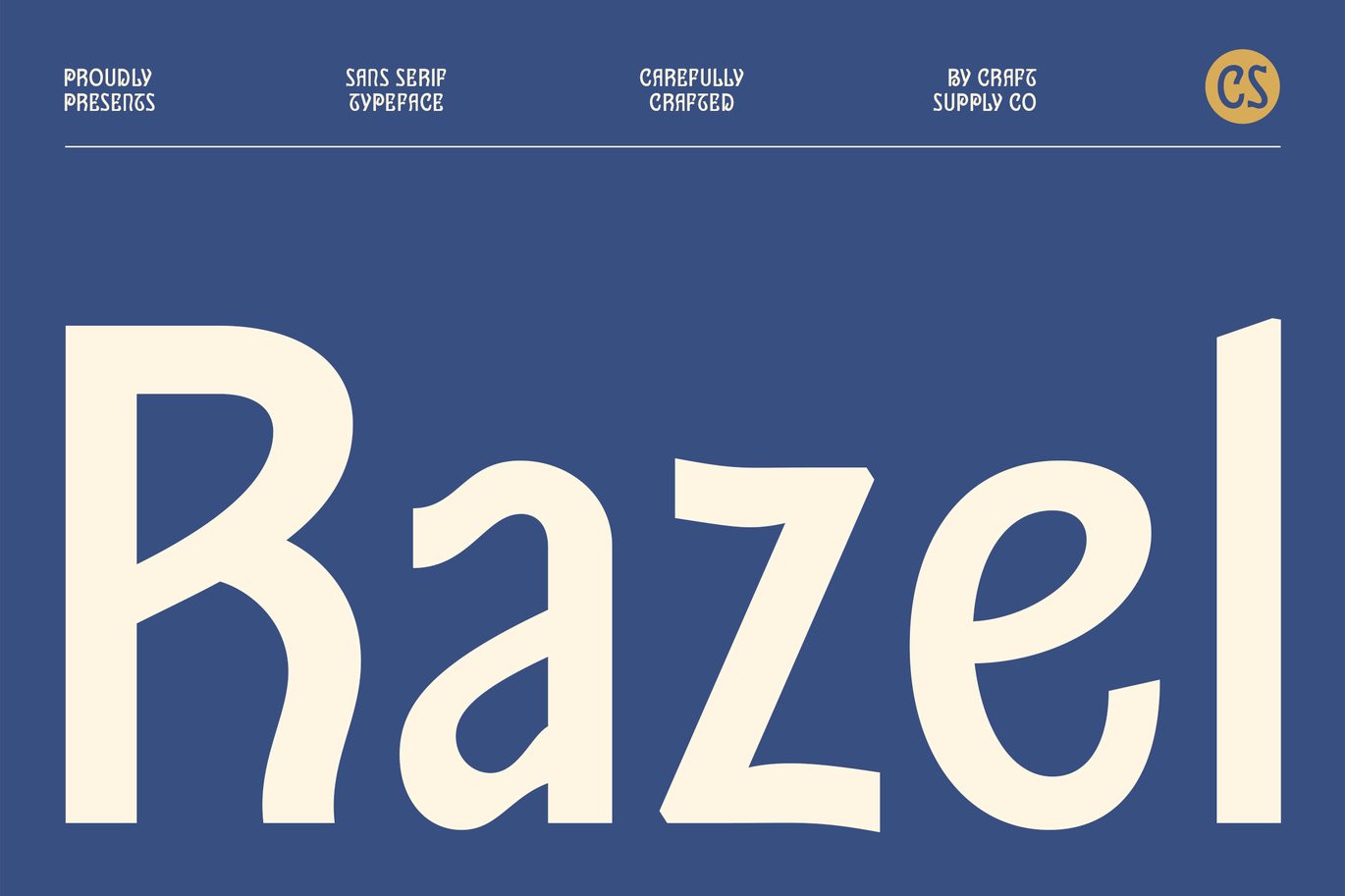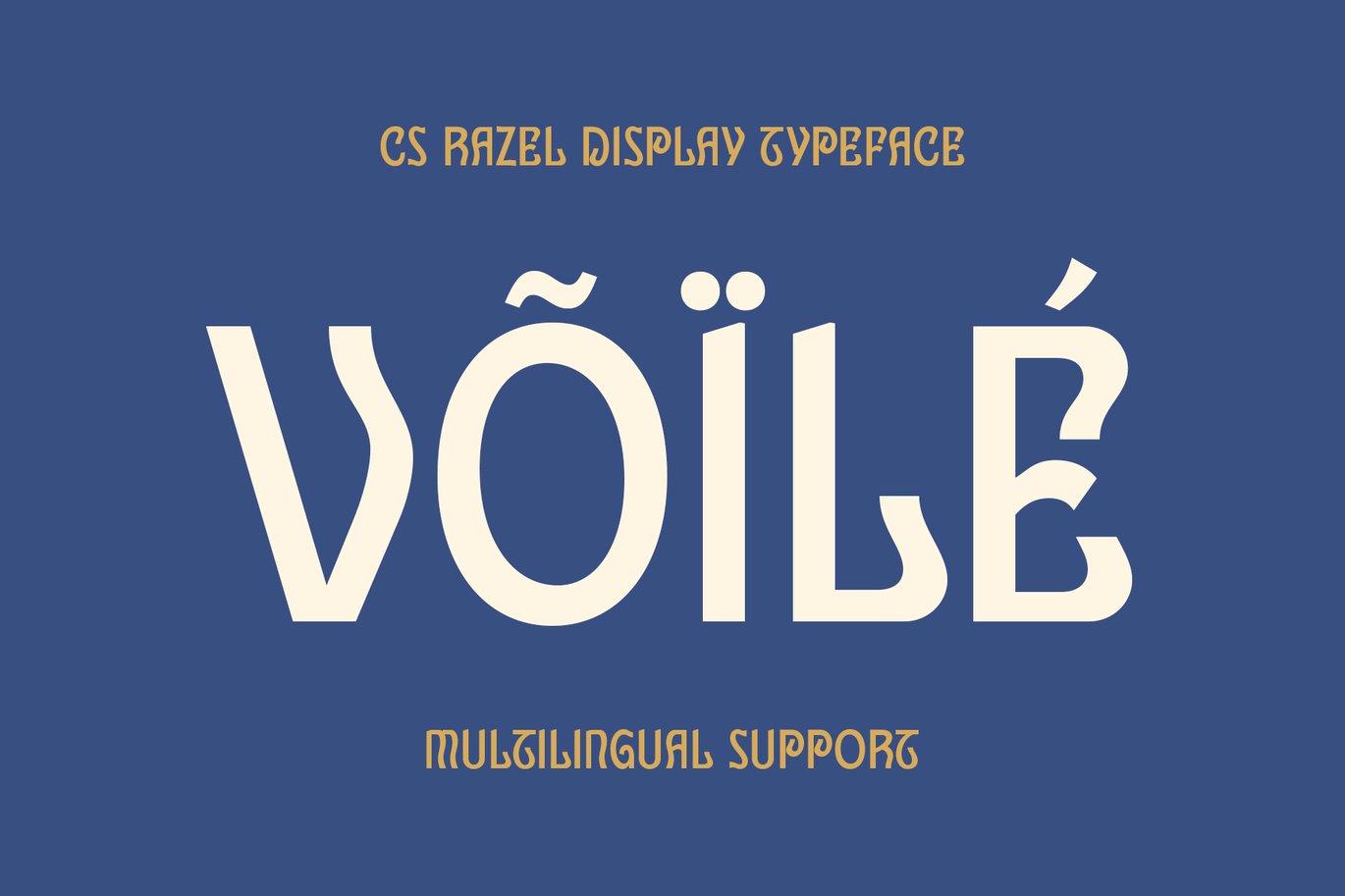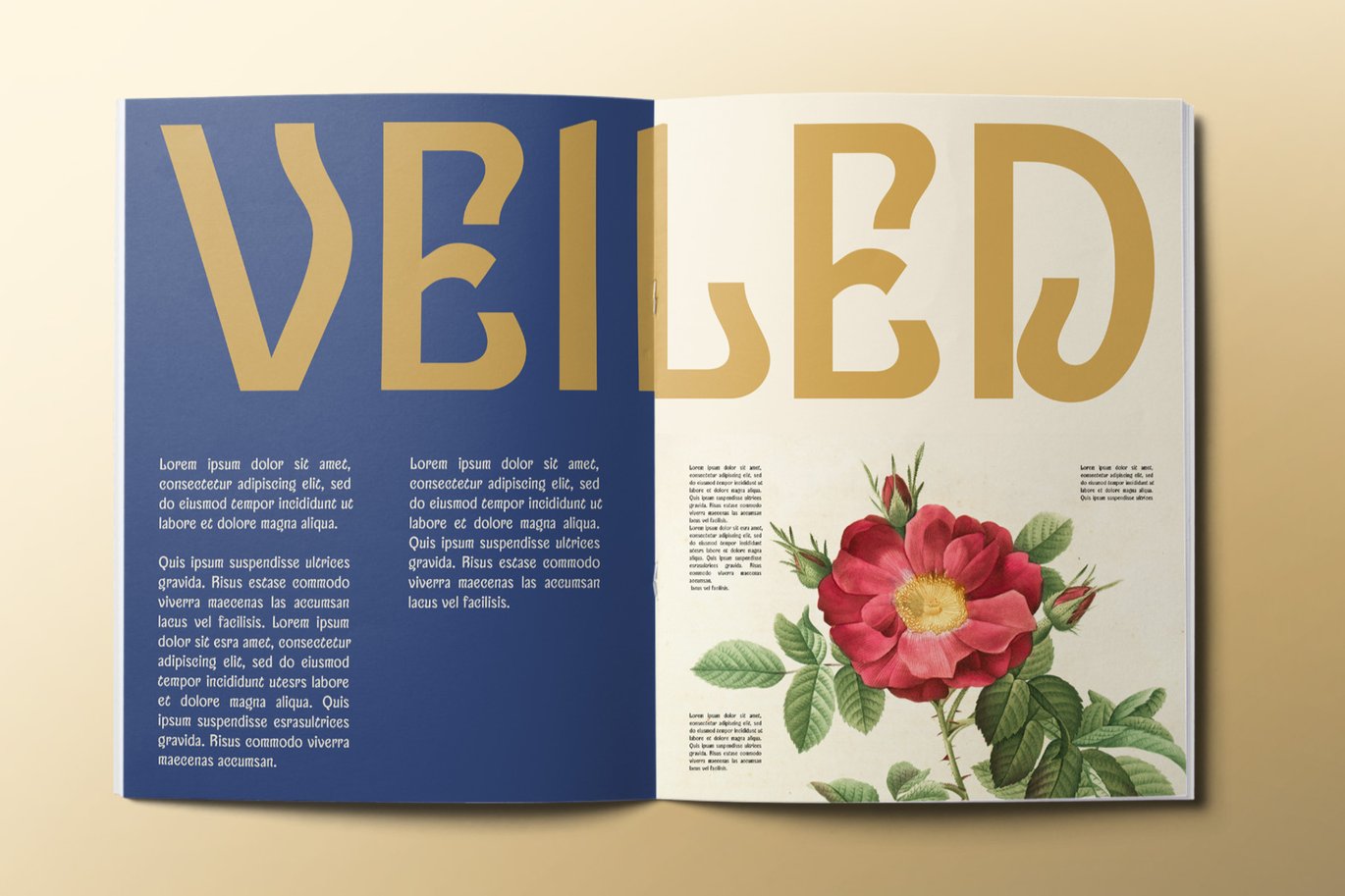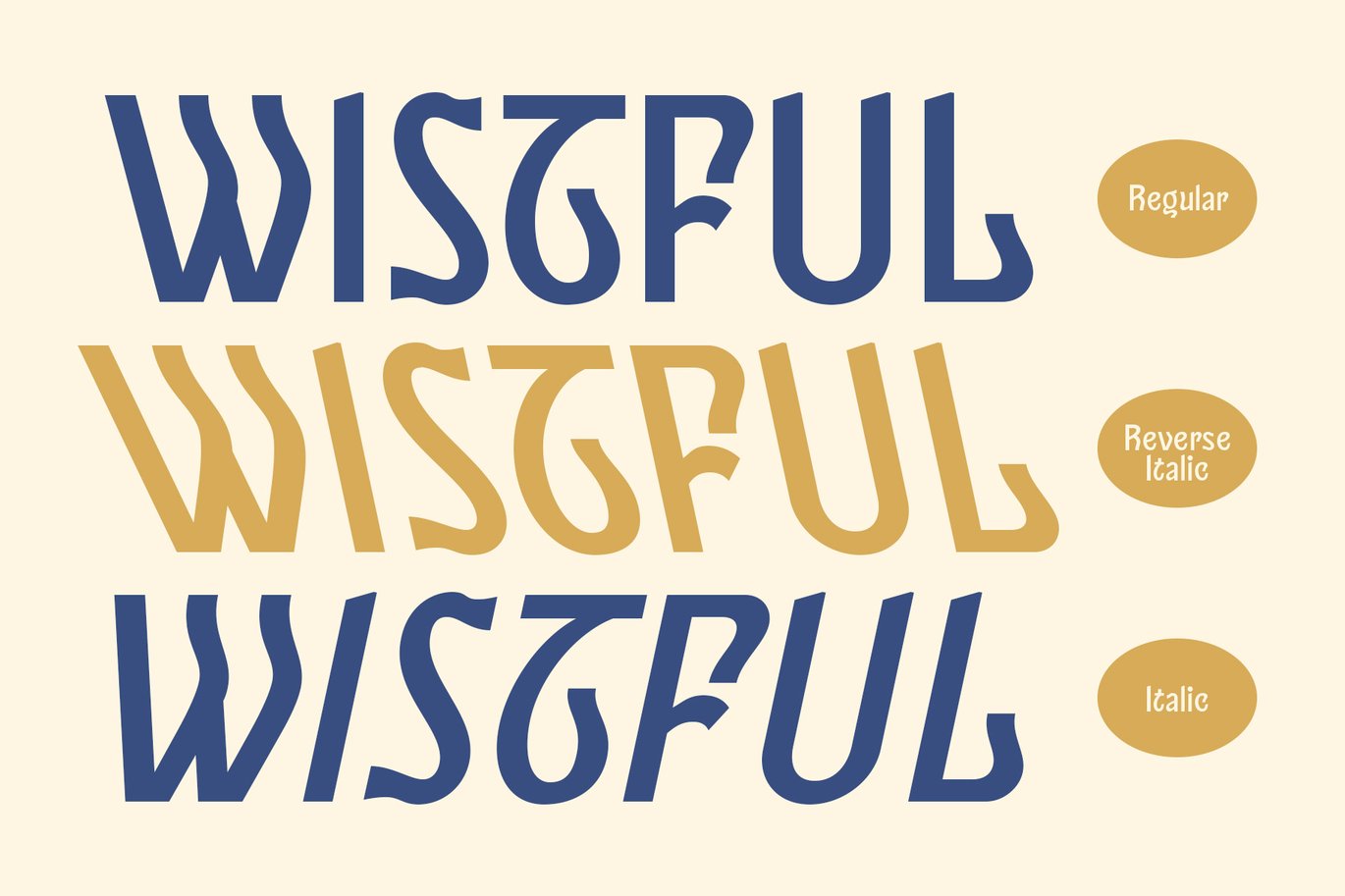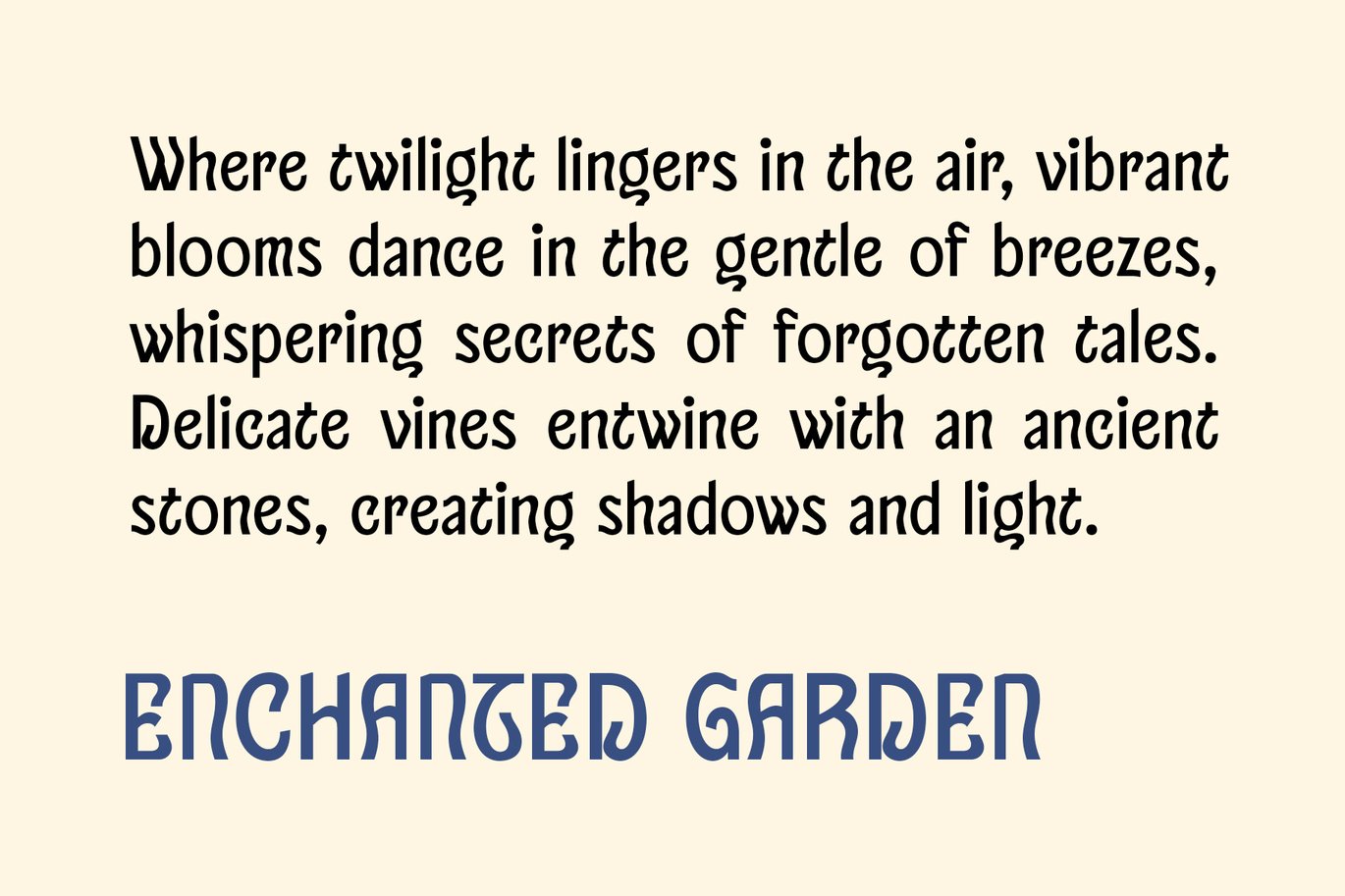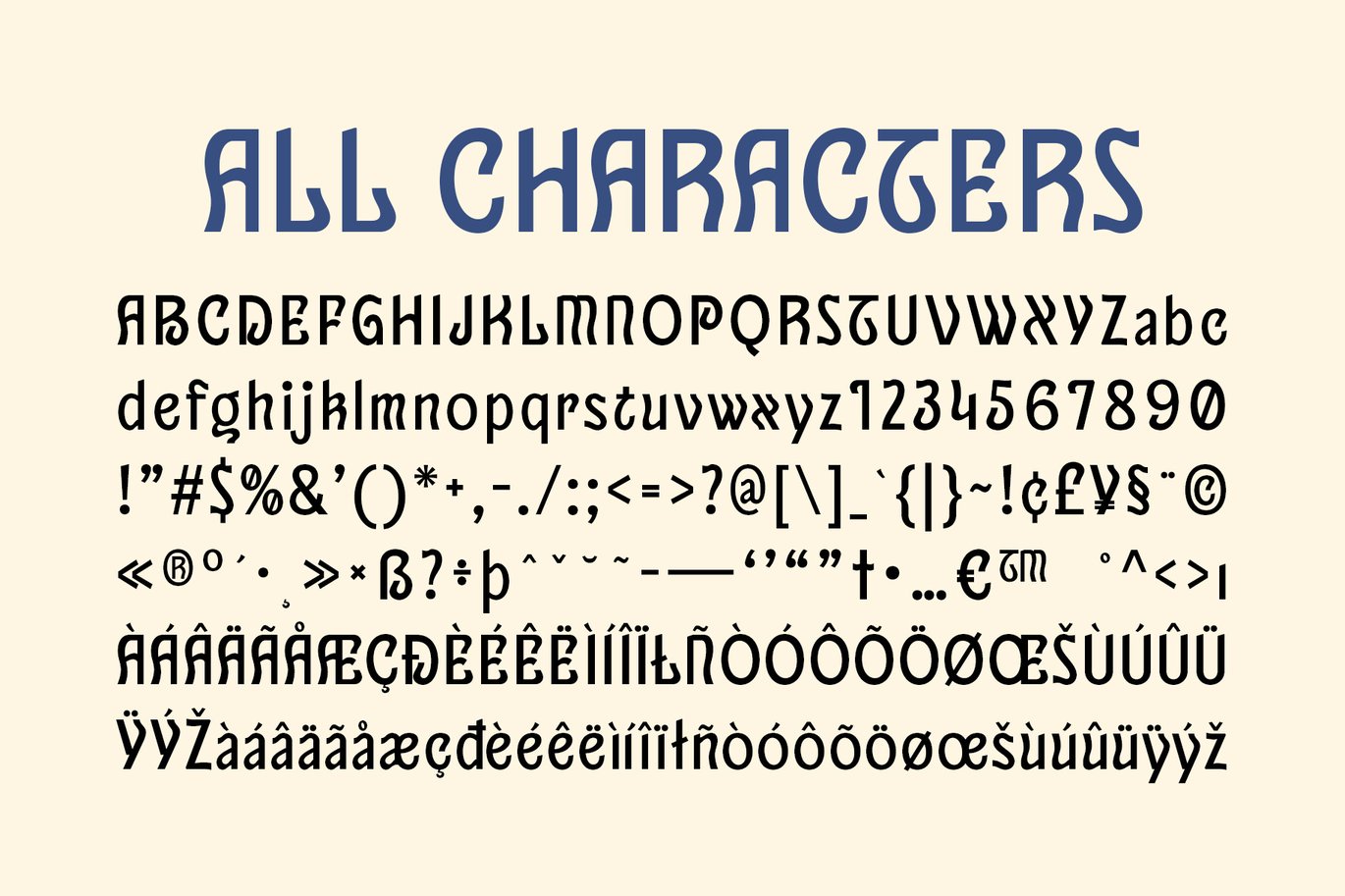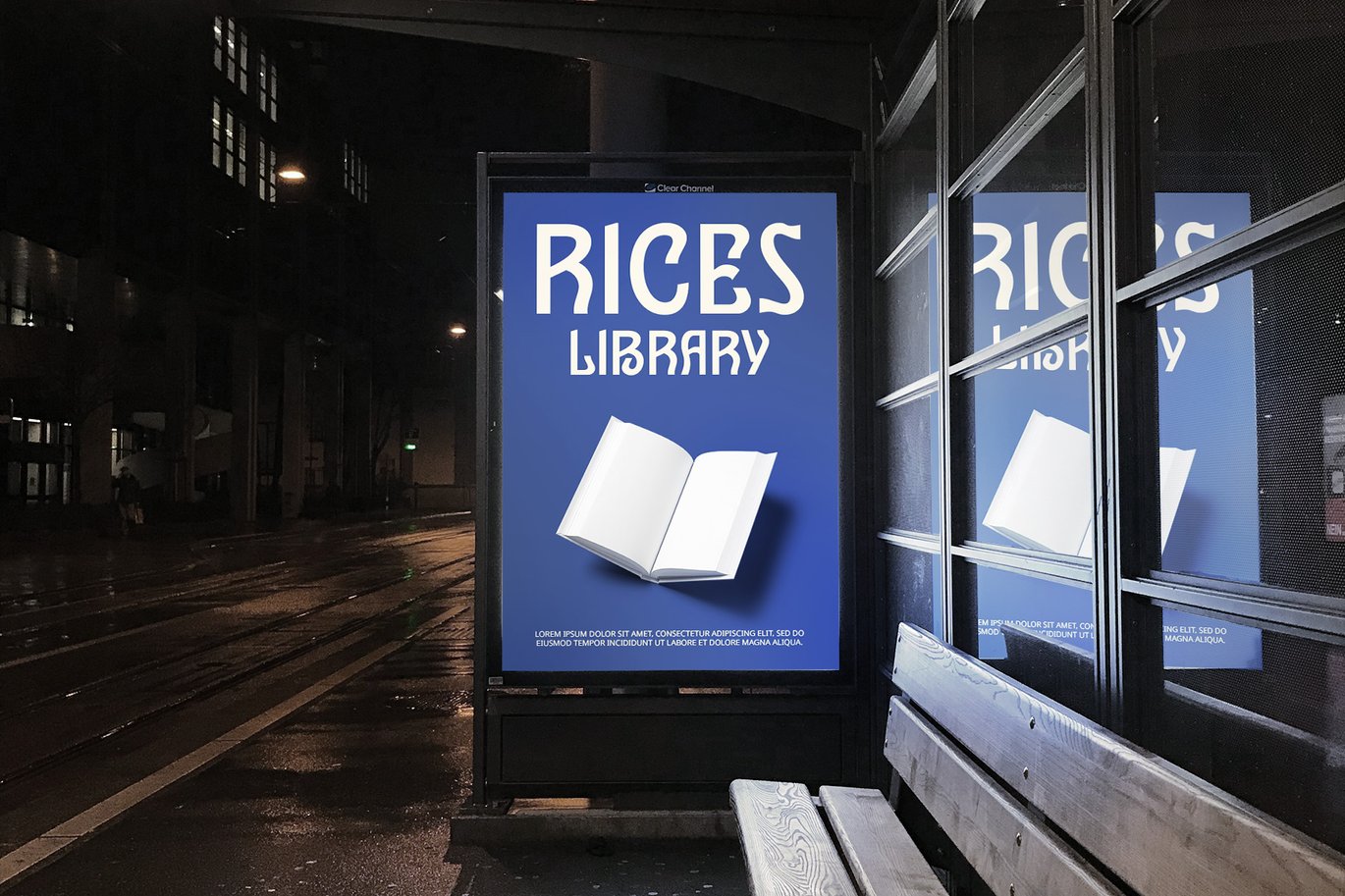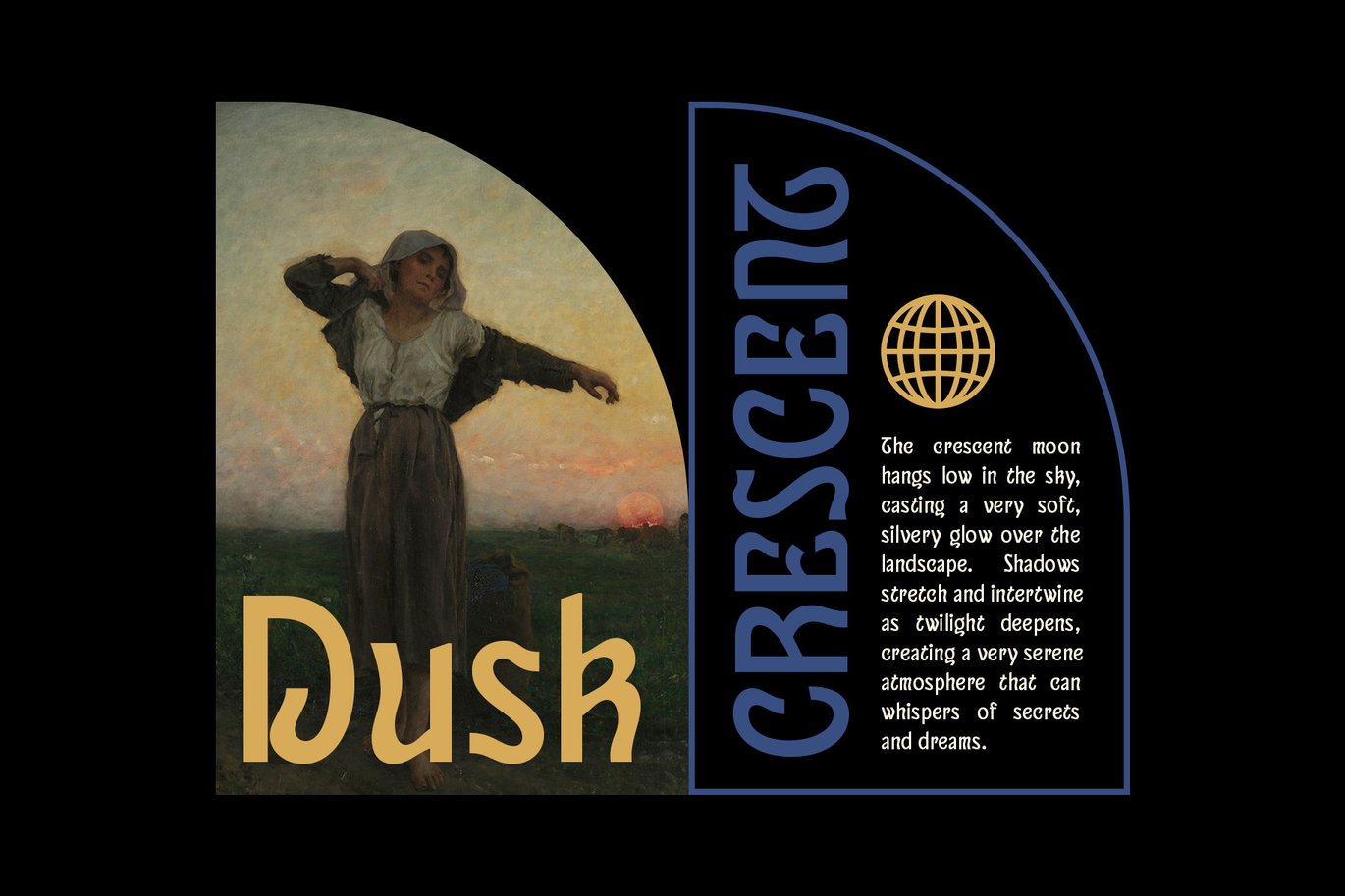
Razel – Art Nouveau Font
CS Razel – Art Nouveau Font
Flowing Elegance and Artistic Sophistication
CS Razel is a stunning display sans-serif font that effortlessly blends the flowing, organic curves of Art Nouveau with the clean simplicity of modern sans-serif design. The result is a harmonious, refined typeface that embodies beauty, elegance, and artistic flair. Its intricate yet graceful details make it an ideal choice for projects that prioritize aesthetics and artistic expression.
Organic, Curvaceous Design
Inspired by the decorative art style of the late 19th century, CS Razel features gentle, fluid curves and smooth lines that evoke a sense of nature and grace. The font’s intricate forms give a nod to the ornamental beauty of Art Nouveau, while maintaining a contemporary and minimalistic feel. This balance makes it perfect for designs that seek to combine historical elegance with modern sophistication.
Perfect for High-End Branding and Creative Projects
With its luxurious, artistic design, CS Razel is perfect for high-end branding, fashion, editorial layouts, and creative projects that aim for a polished and sophisticated appearance. Whether it’s used for upscale logos, product packaging, or promotional materials, this font offers a refined touch that enhances the overall aesthetic of any design.